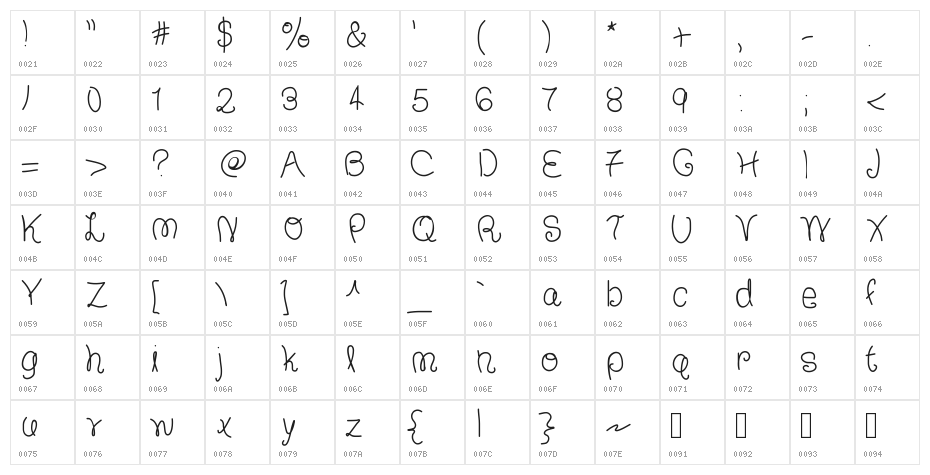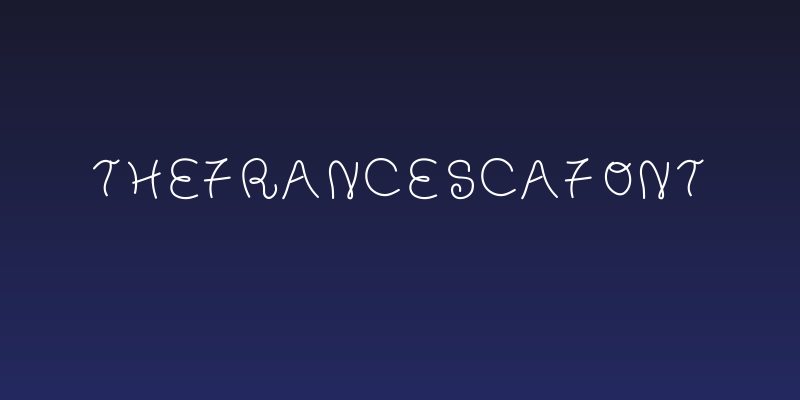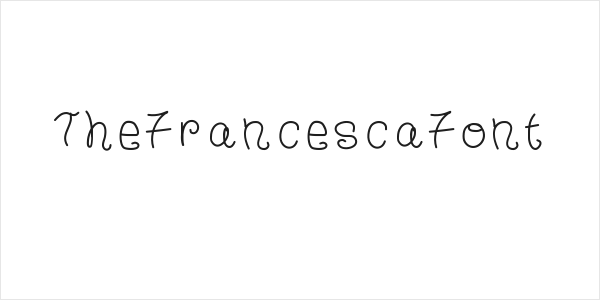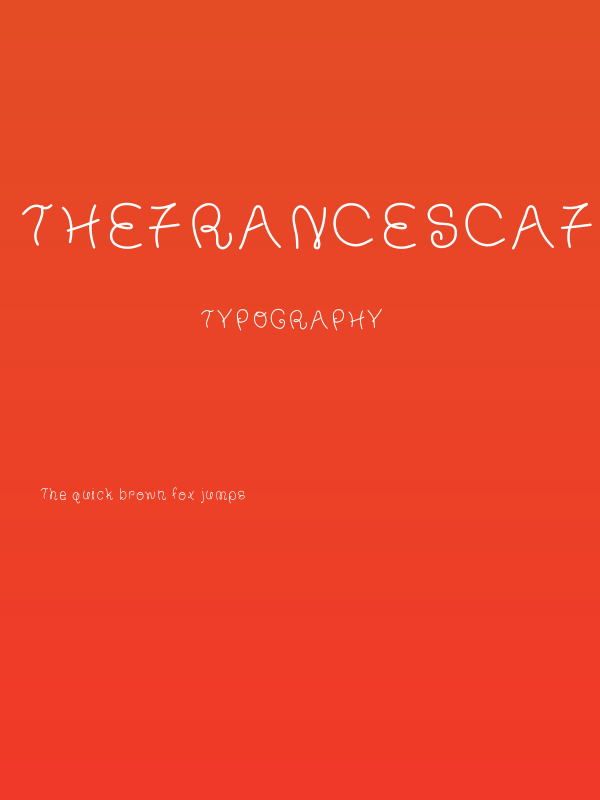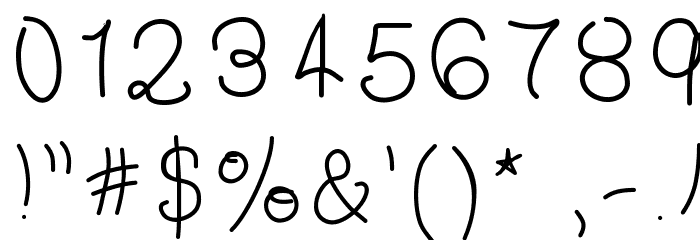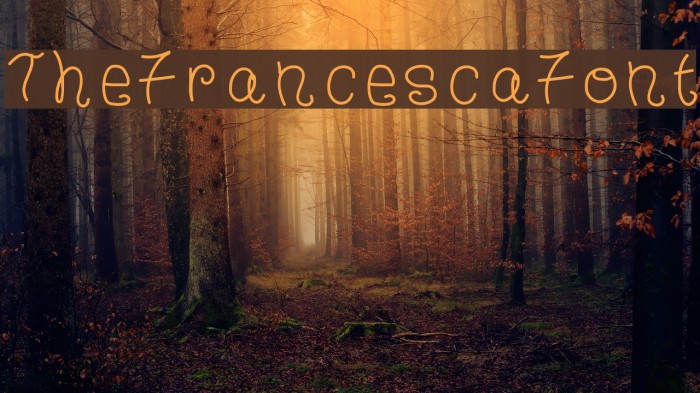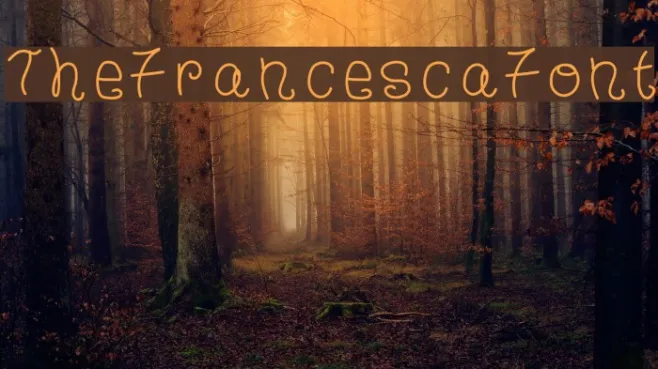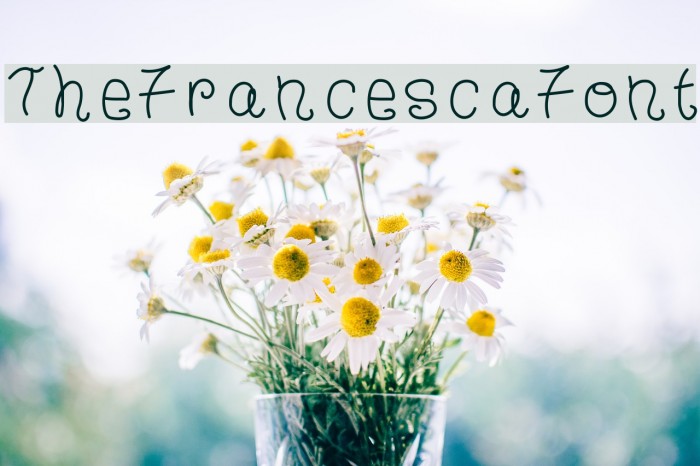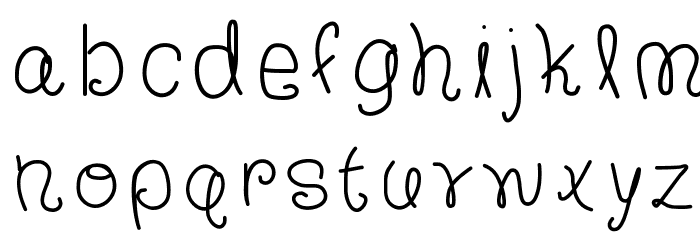
TheFrancescaFont Font
TheFrancescaFont Description
This font features a playful and whimsical style with a handwritten appearance. The characters are slightly irregular, giving it a casual and friendly feel. The strokes are smooth and rounded, with a consistent thickness throughout, which adds to its approachable nature. The uppercase letters are distinct and slightly larger than the lowercase, maintaining a good balance. Numbers and special characters are designed to match the overall style, ensuring uniformity across all glyphs. This font is perfect for projects that require a personal touch or a fun, informal vibe.
| Proposed Projects | Ideal for greeting cards, children's books, playful branding, and casual invitations. |